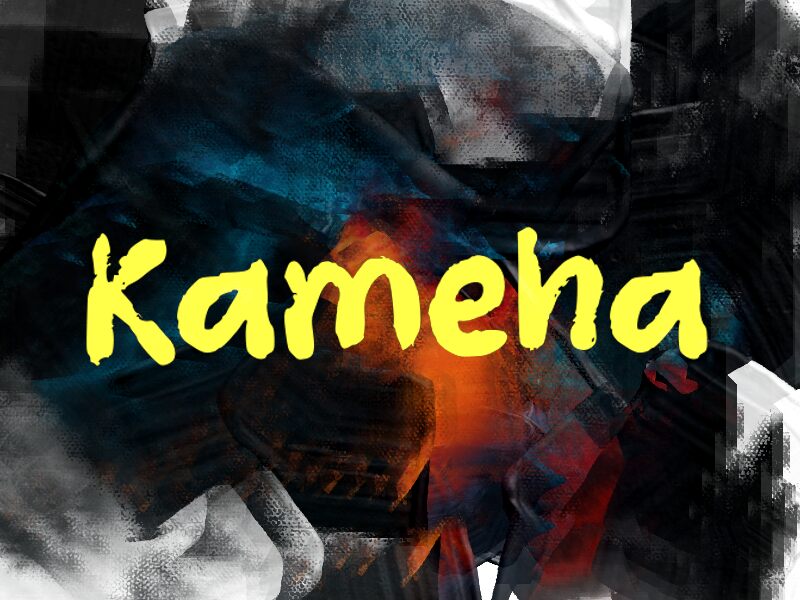
Kameha
Kameha font by wep is a free brush font that looks like it was painted in one bold, messy breath. Each letter feels saturated with inky black, with chunky strokes that taper and splatter just enough to feel human, not chaotic. The rhythm is loose and bouncy, giving headlines a raw, energetic presence that grabs the eye and doesn’t let go.
Using Kameha, you get that loud, hand-painted vibe that shines on posters, streetwear graphics, music or event flyers, bold social media titles, food packaging, and punchy logo wordmarks. This free typeface thrives at larger sizes where its rough edges and texture can really show. For a clean contrast, pair Kameha with a simple geometric sans in smaller text to keep the wildness focused where it matters most.